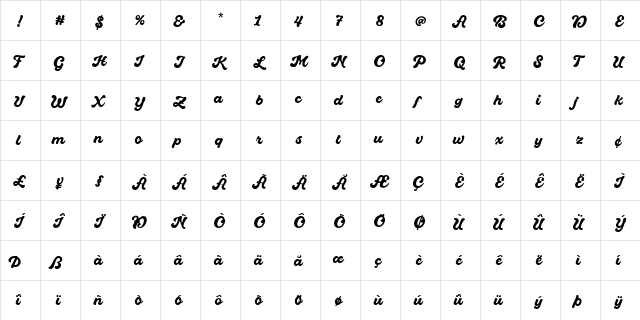
Quintal Script Personal Use Bold
| Foundry | Saffatin.co & Sarwo Edi |
| Designer | Sarwo Edi |
Design Context for Quintal Script Personal Use Typeface
Quintal Script Personal Use brings a calligraphic fluidity to the page — its connecting strokes and expressive curves give it an unmistakably human quality. Its bold stroke weight gives it real presence on the page.
Font Pairing: Combine Quintal Script Personal Use with a simple geometric sans for maximum contrast — the tension between flowing curves and clean structure is a classic typographic pairing.
Pro Tip: Use Quintal Script Personal Use for short runs of text — names, titles, or taglines. Extended body copy in script faces tires the eye quickly.